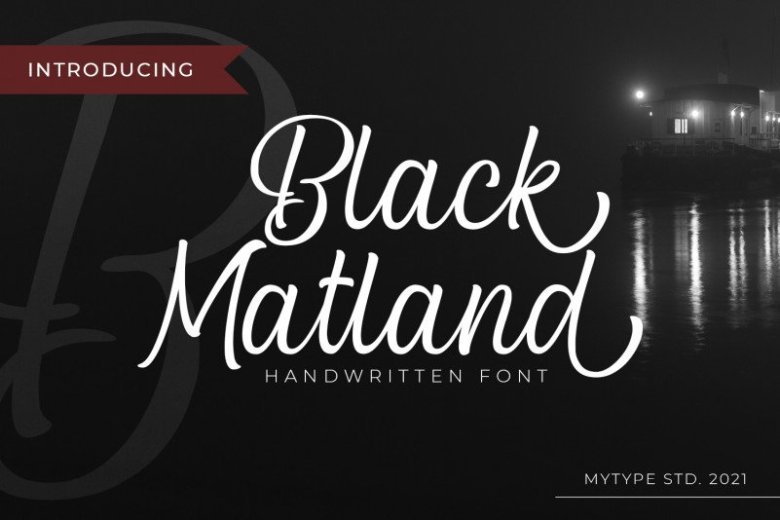
Black Matland Font
Black Matland Font is a high quality handwritten font that is designed by Icreatype and is available for free download and personal use. The free version provides all uppercase and lowercase letters and a few special characters too.